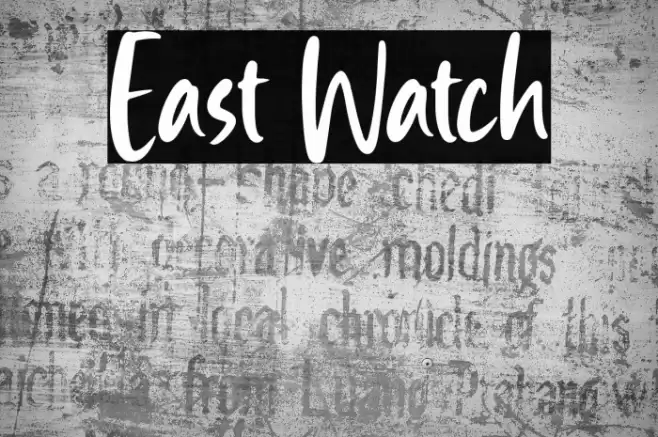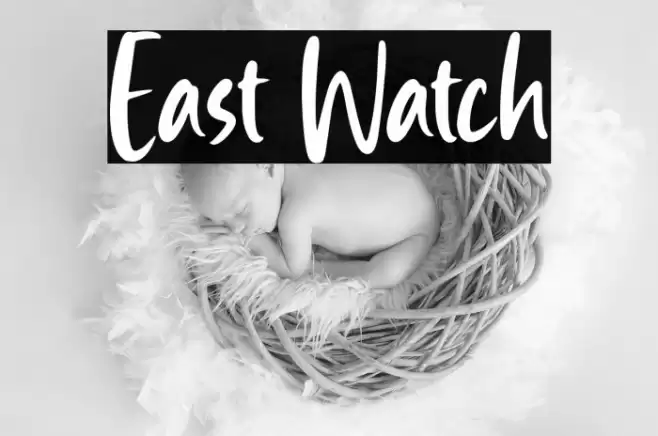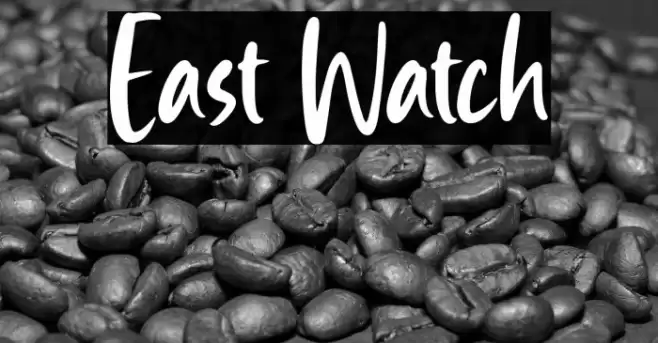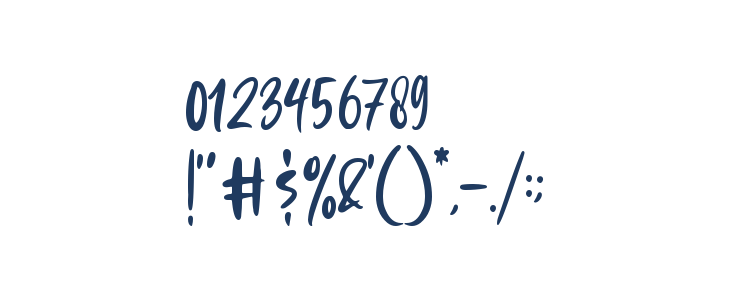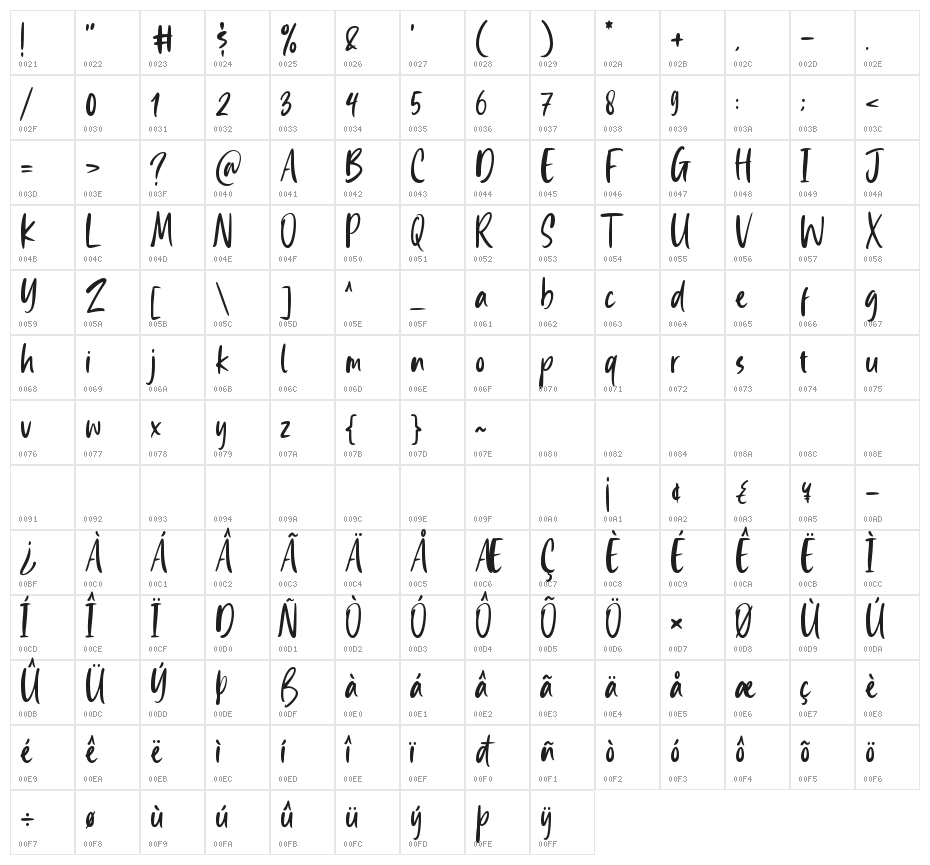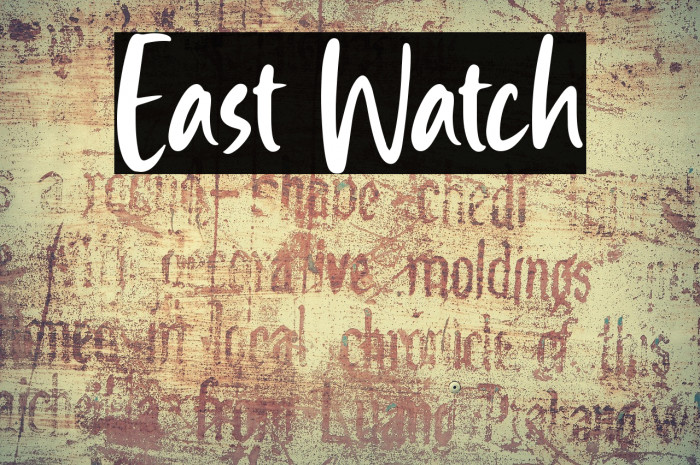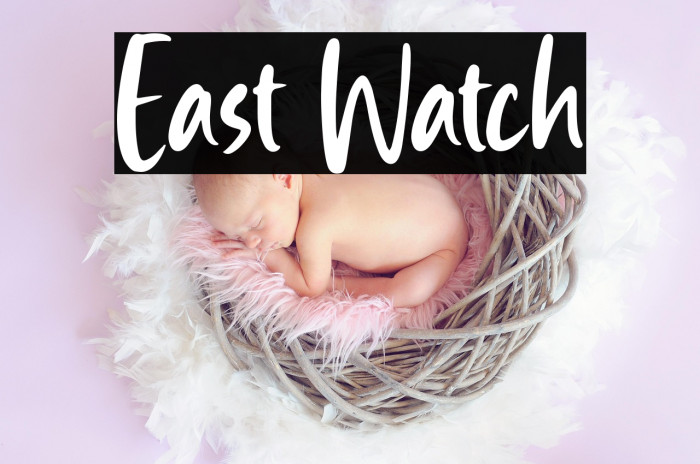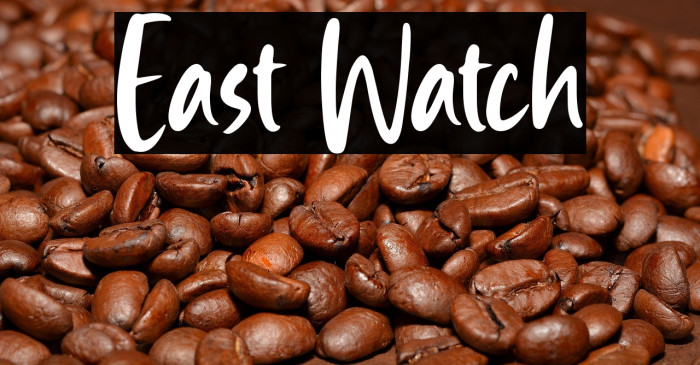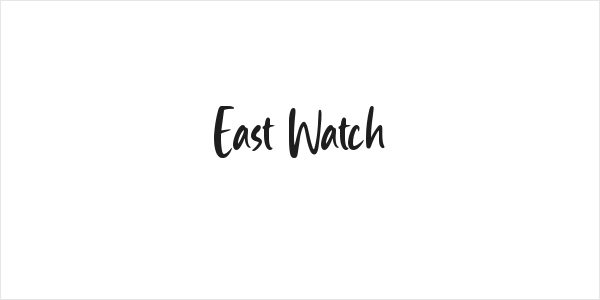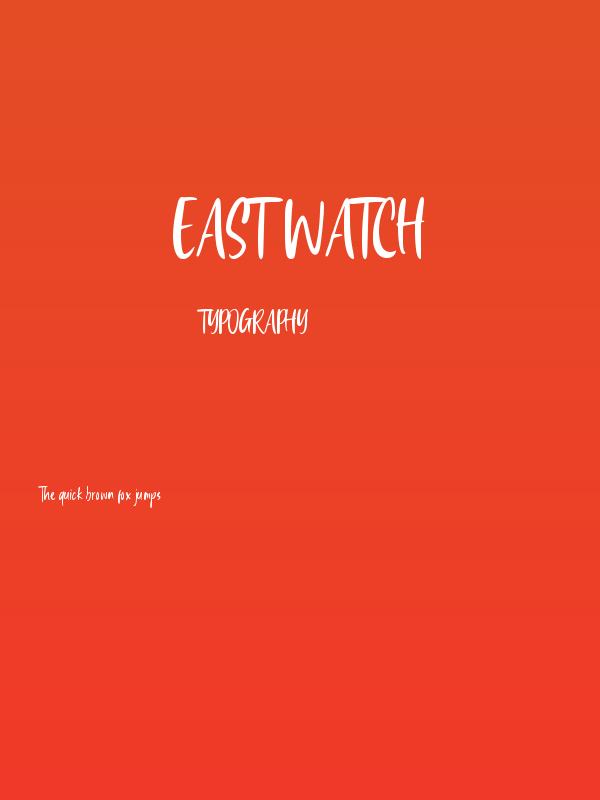
East Watch Font
East Watch Description
This font features a playful and energetic handwritten style, characterized by its bold and expressive strokes. The uppercase letters are tall and slightly condensed, with a dynamic flow that adds a sense of movement. The lowercase letters maintain a consistent style, complementing the uppercase with their rounded and slightly irregular shapes. The numerals are bold and clear, ensuring readability while maintaining the font's lively character. Special characters are creatively designed, adding to the overall whimsical feel. This font exudes a casual and friendly vibe, making it suitable for projects that require a personal touch.
A bold, playful handwritten font with expressive strokes and a lively character from Uncategorized fonts.
- Proposed Projects: Ideal for greeting cards, invitations, posters, and branding projects that seek a personal and friendly touch.